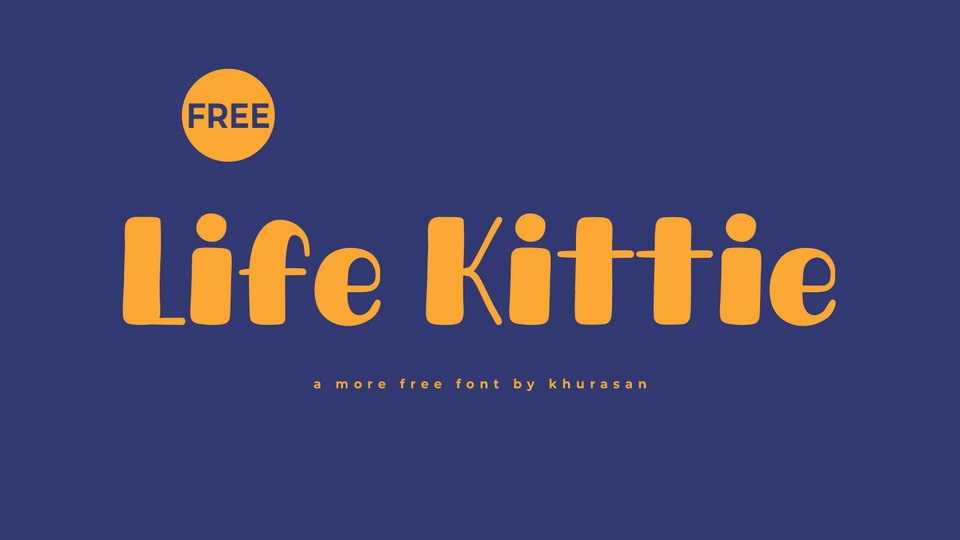
Download Life Kitty font, a charming and delightful hand-drawn typeface that captures hearts with its smooth and high-contrast strokes. Life Kitty font is lovingly crafted to exude a sense of sweetness and warmth, perfect for adding a touch of love and affection to your designs.